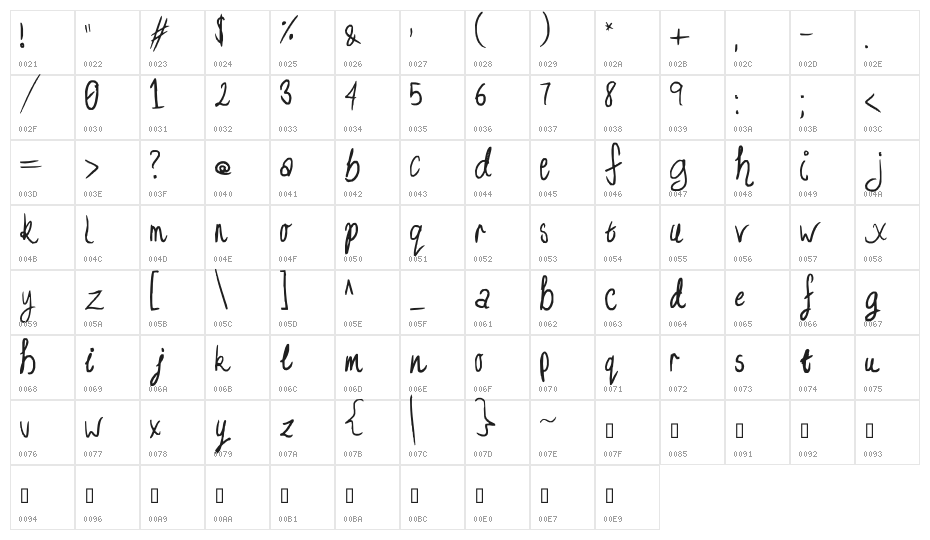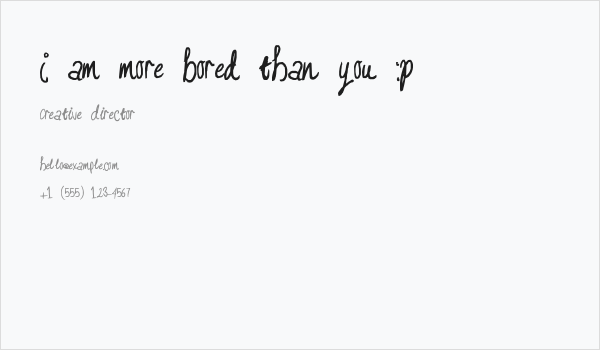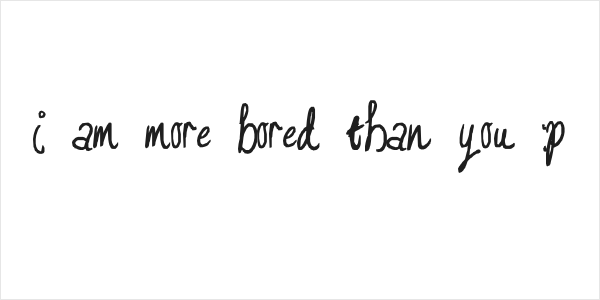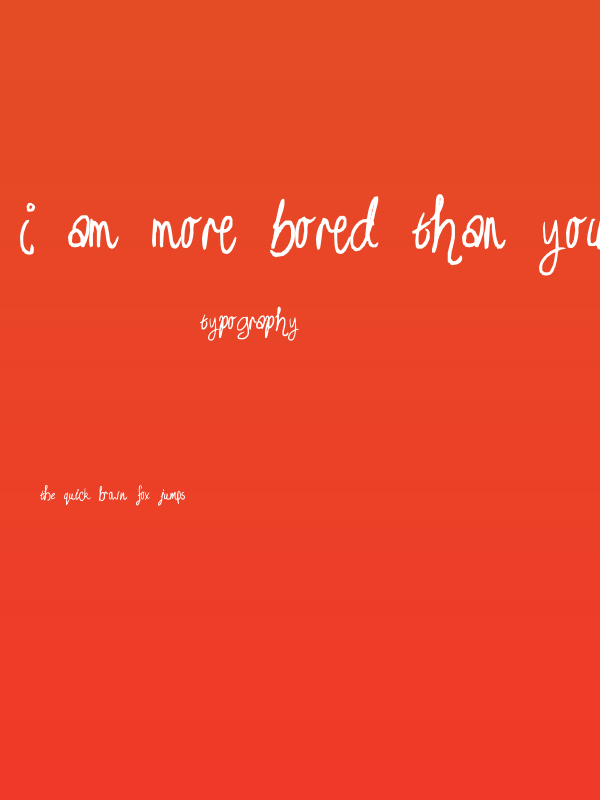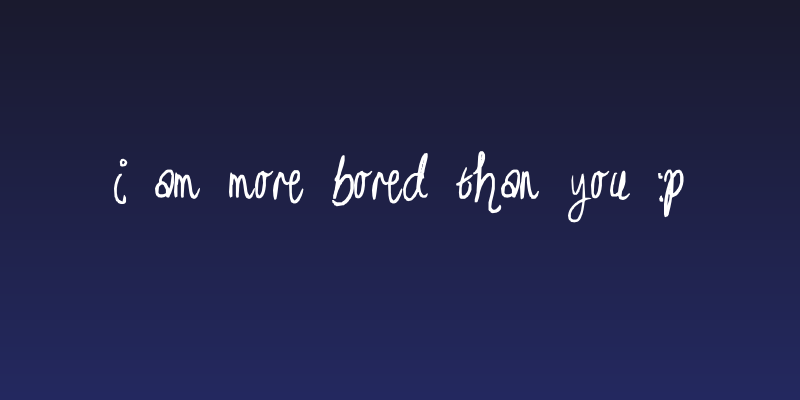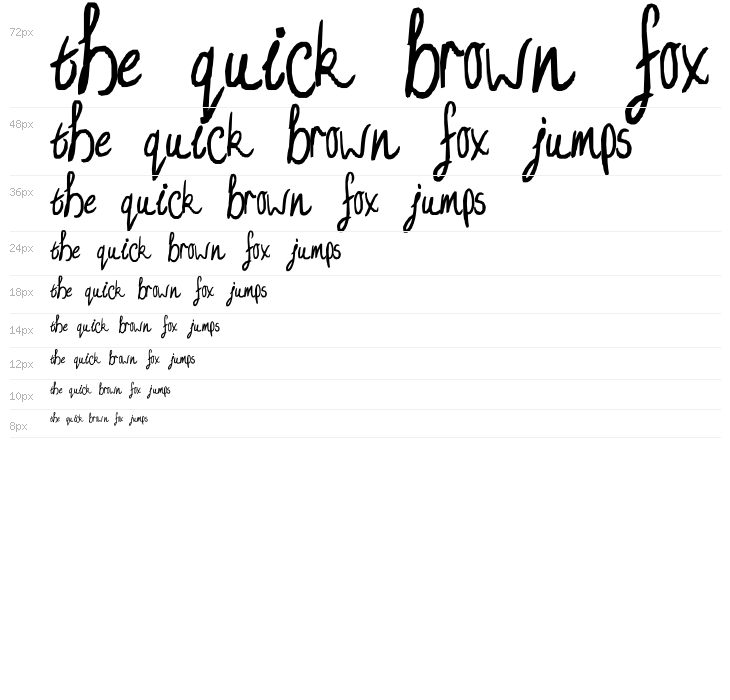
I am more bored than you :P Font
I am more bored than you :P Description
This font exhibits a playful and casual handwritten style, characterized by its fluid and organic strokes. The letters are slightly irregular, giving it a personal and informal touch. The uppercase and lowercase letters maintain a consistent flow, while the numbers and special characters complement the overall aesthetic. The strokes vary in thickness, adding a dynamic and lively feel to the text. This font is ideal for projects that require a touch of whimsy and personality, such as greeting cards, invitations, or creative branding materials. Its unique style makes it stand out, offering a fresh and approachable look.
| Use Case | Creative projects, Personal notes, Informal communications. |
| Proposed Projects | Greeting cards, invitations, creative branding, personal notes. |